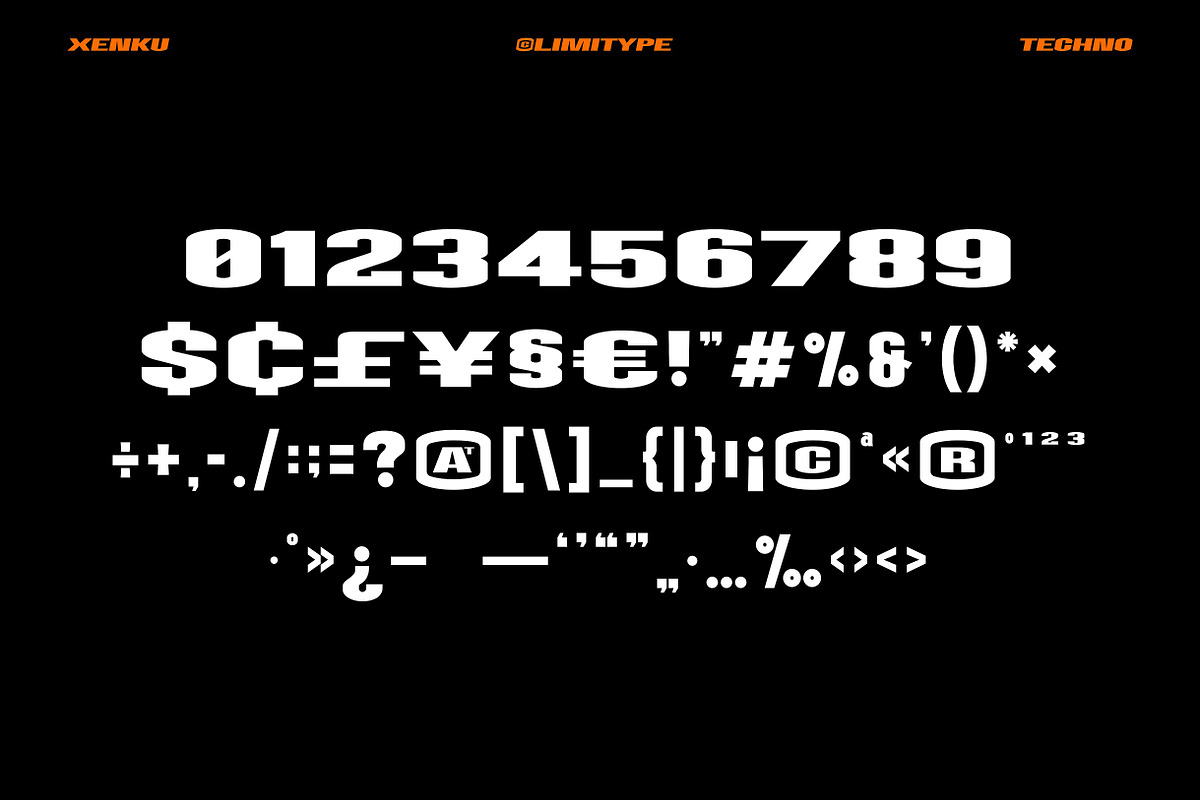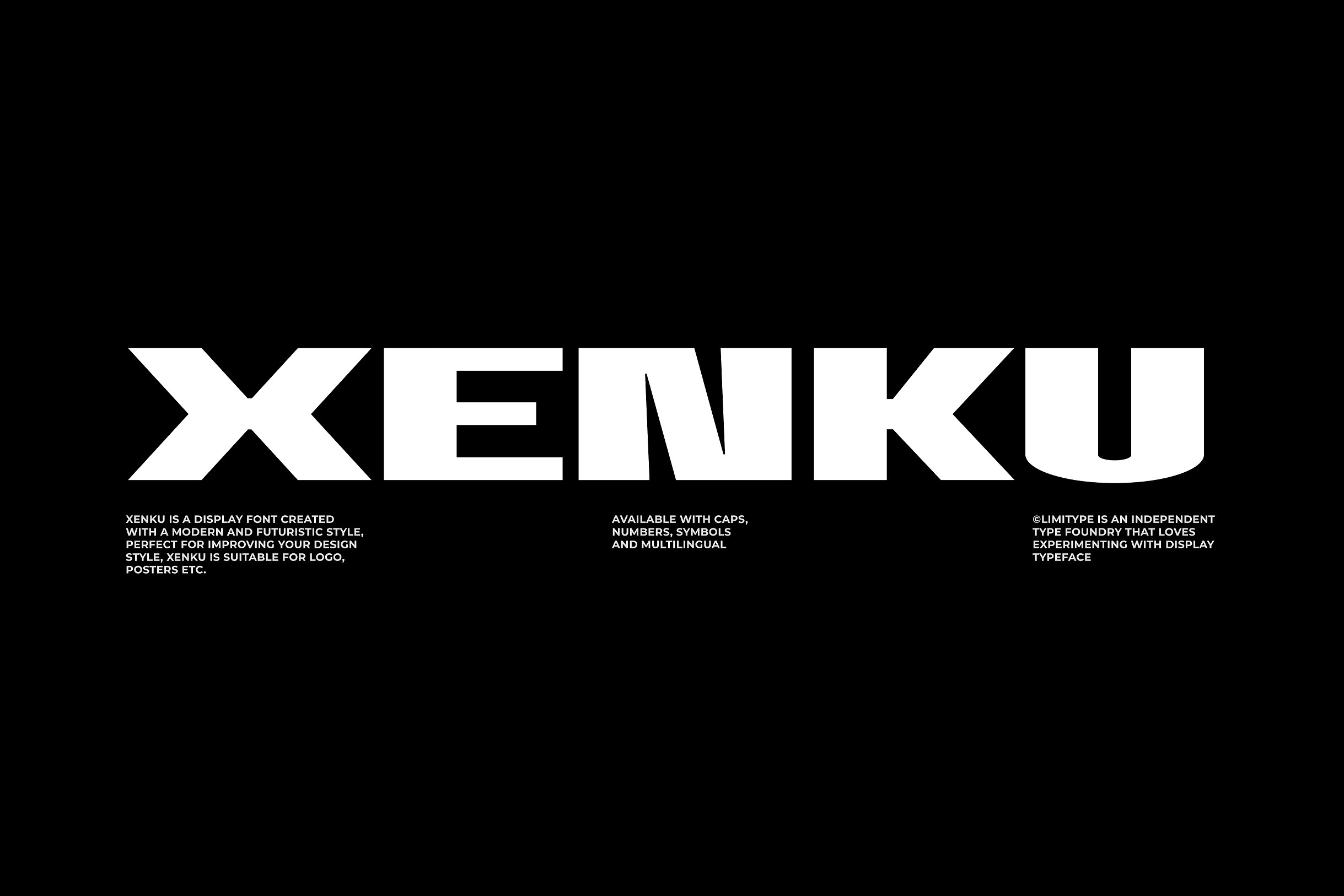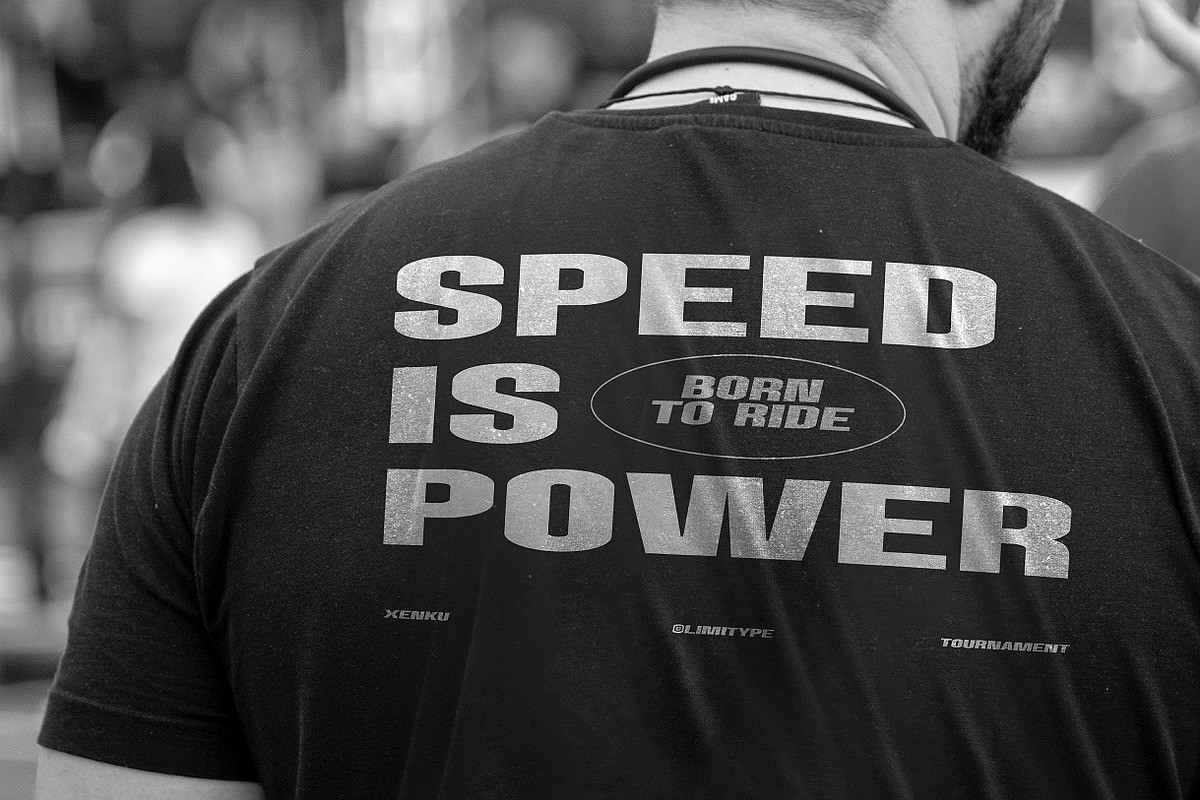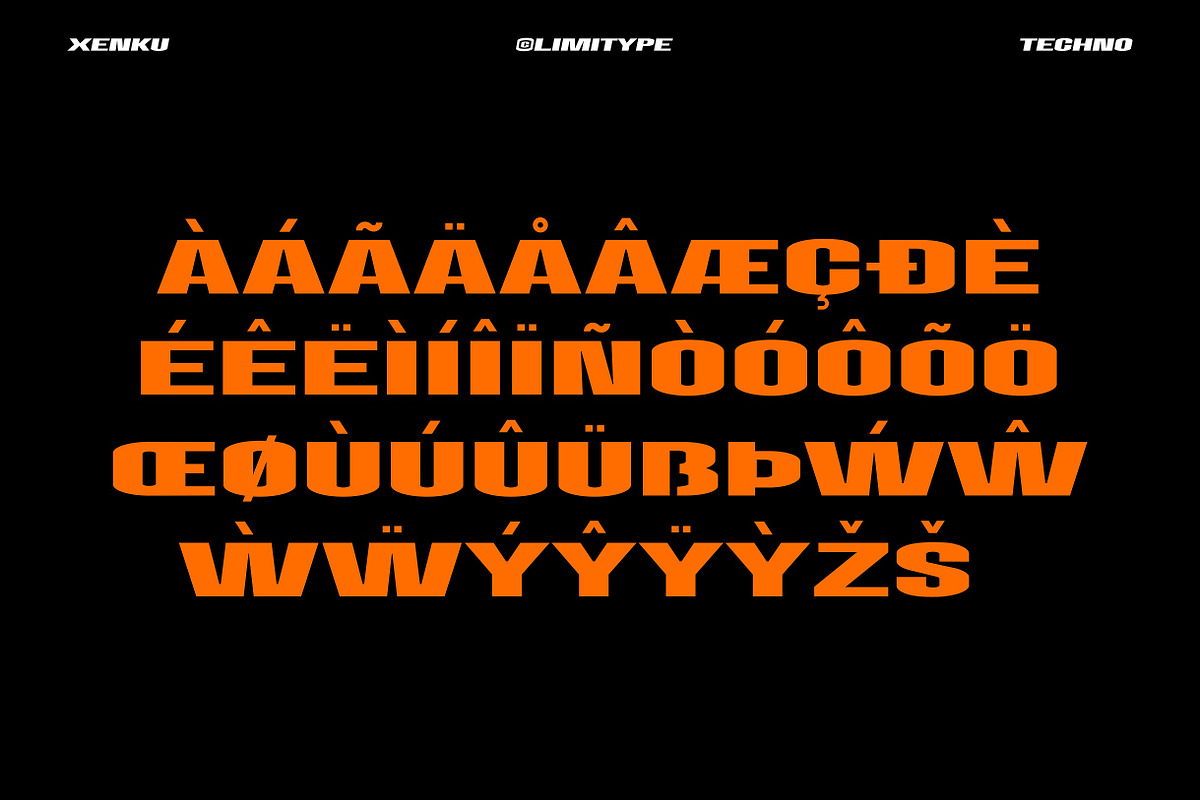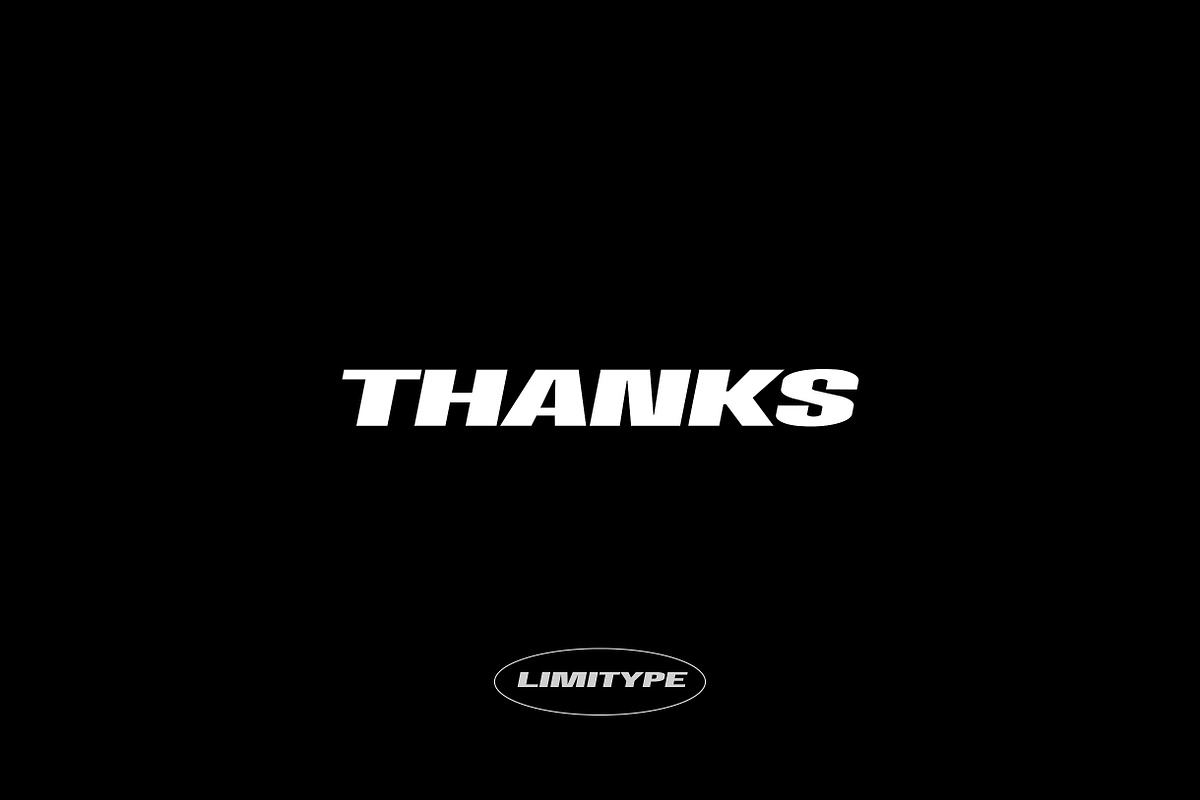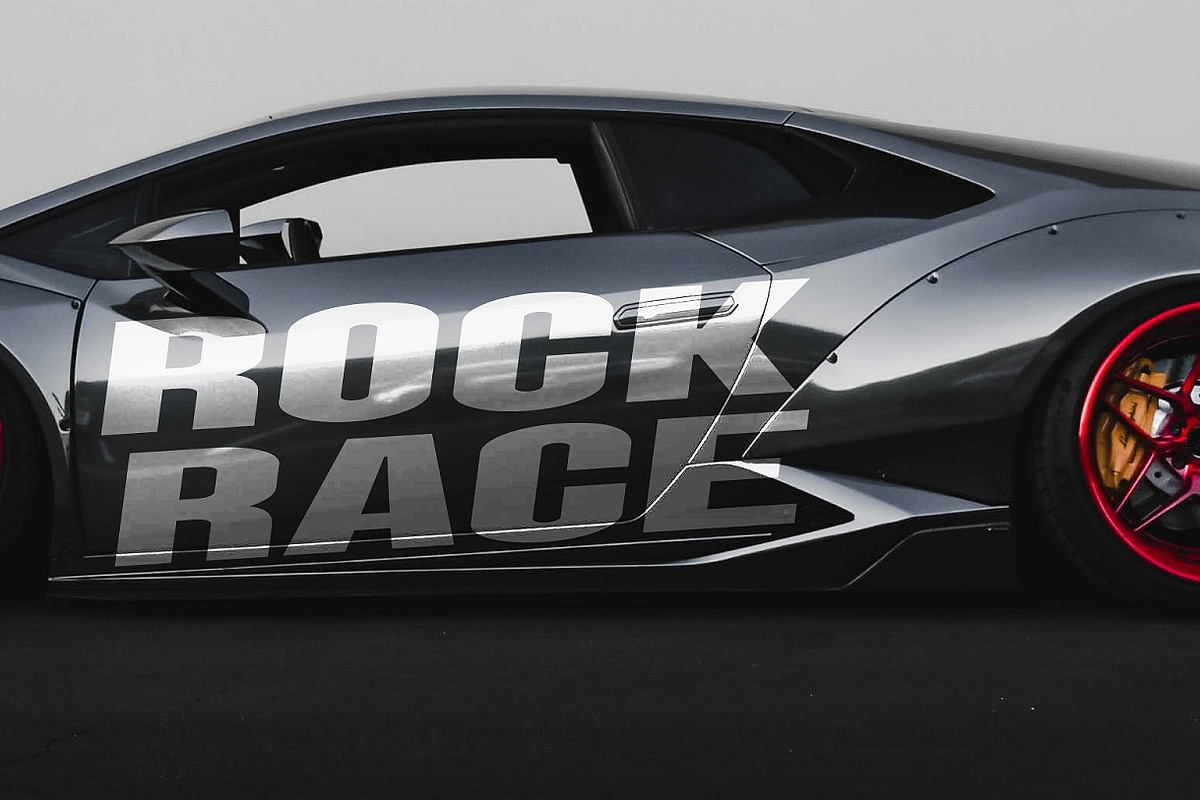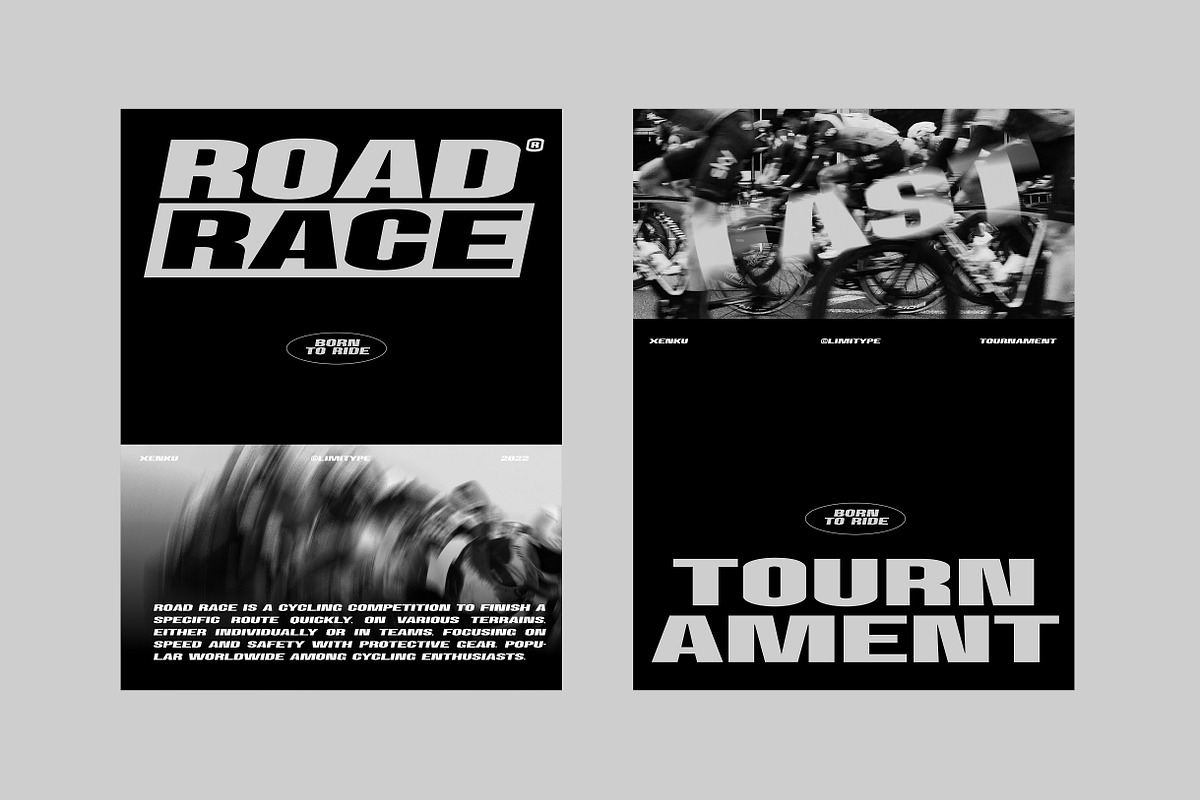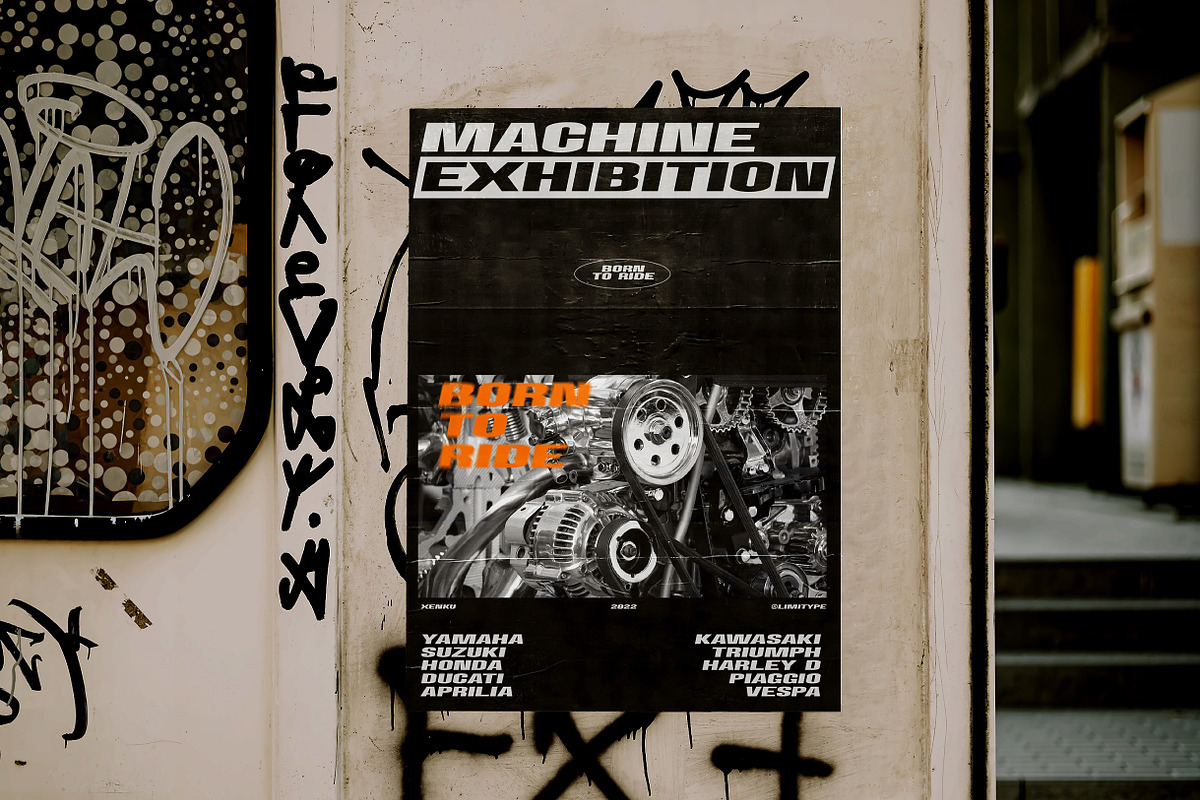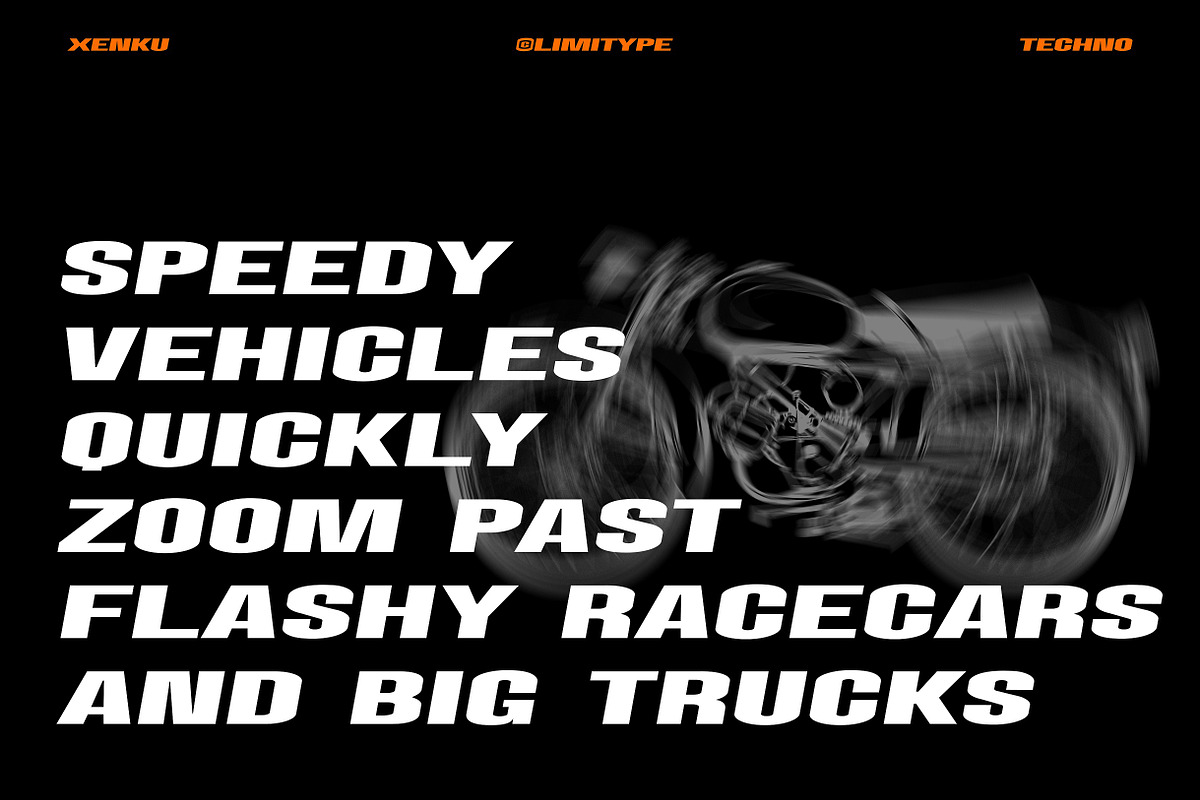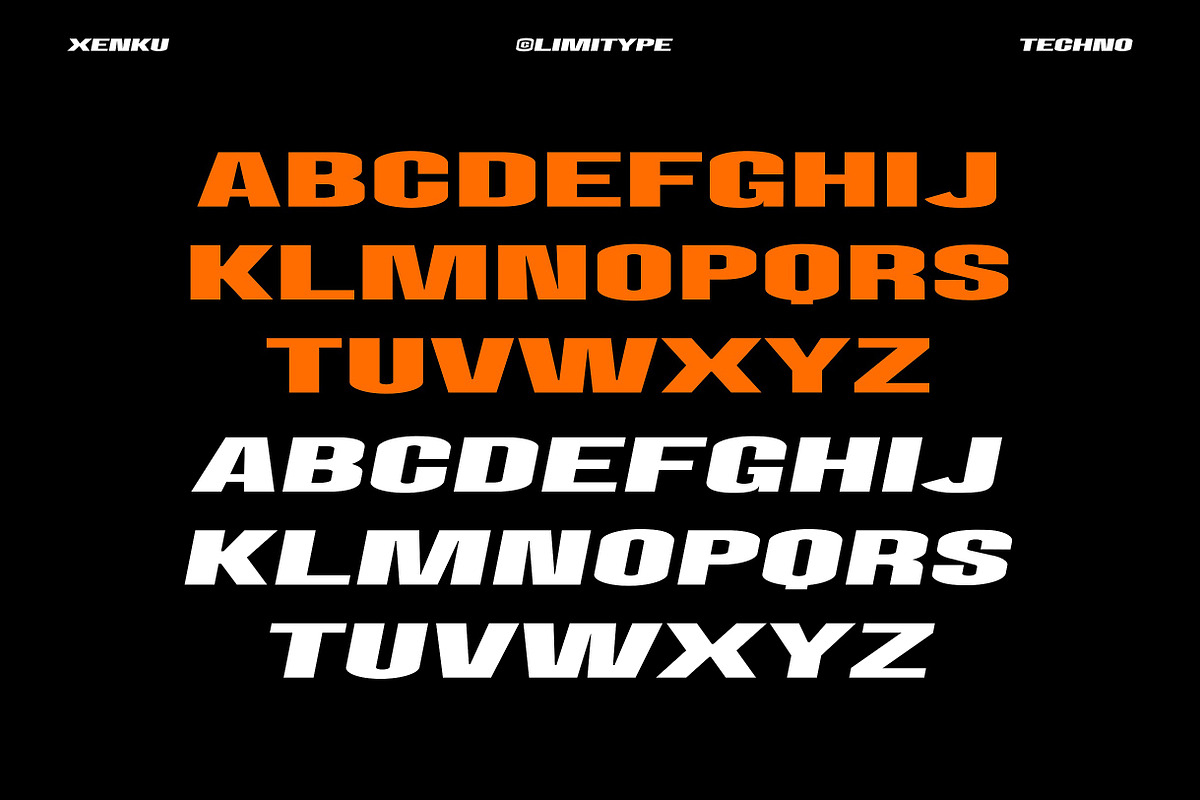
Xenku - Modern Techno Typeface
Xenku Is A Display Font With A Modern Sans Serif Style, Made With A More Dynamic And Flexible Impression, Making This Font Look More Futurustic.
Xenku Comes With:
- All Caps Fonts
- Symbol
- Multi Language
- And Italic Version